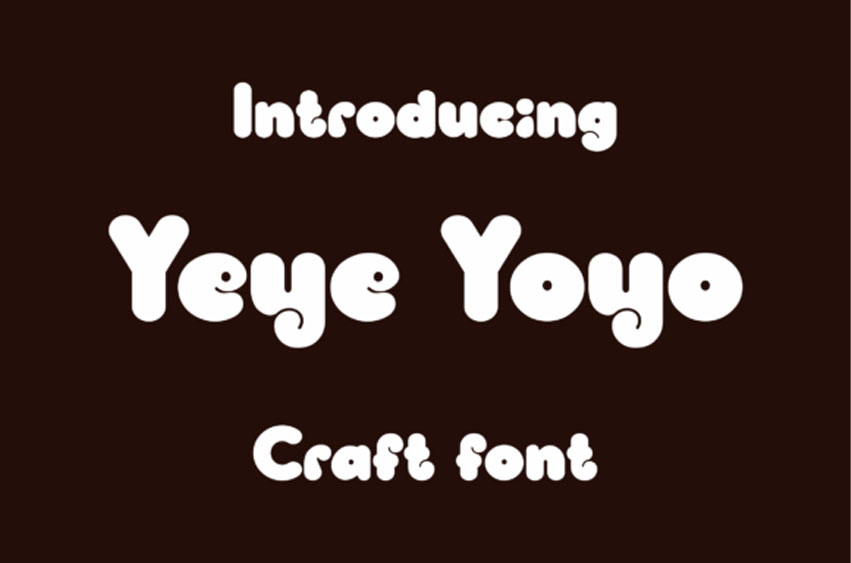
Yeye Yoyo Font
Yeye Yoyo Font has a unique fat look specifically made for Creators to promote their handmade products such as Craft toys, Paste Clay, and foods.
It will certainly amaze your readers.